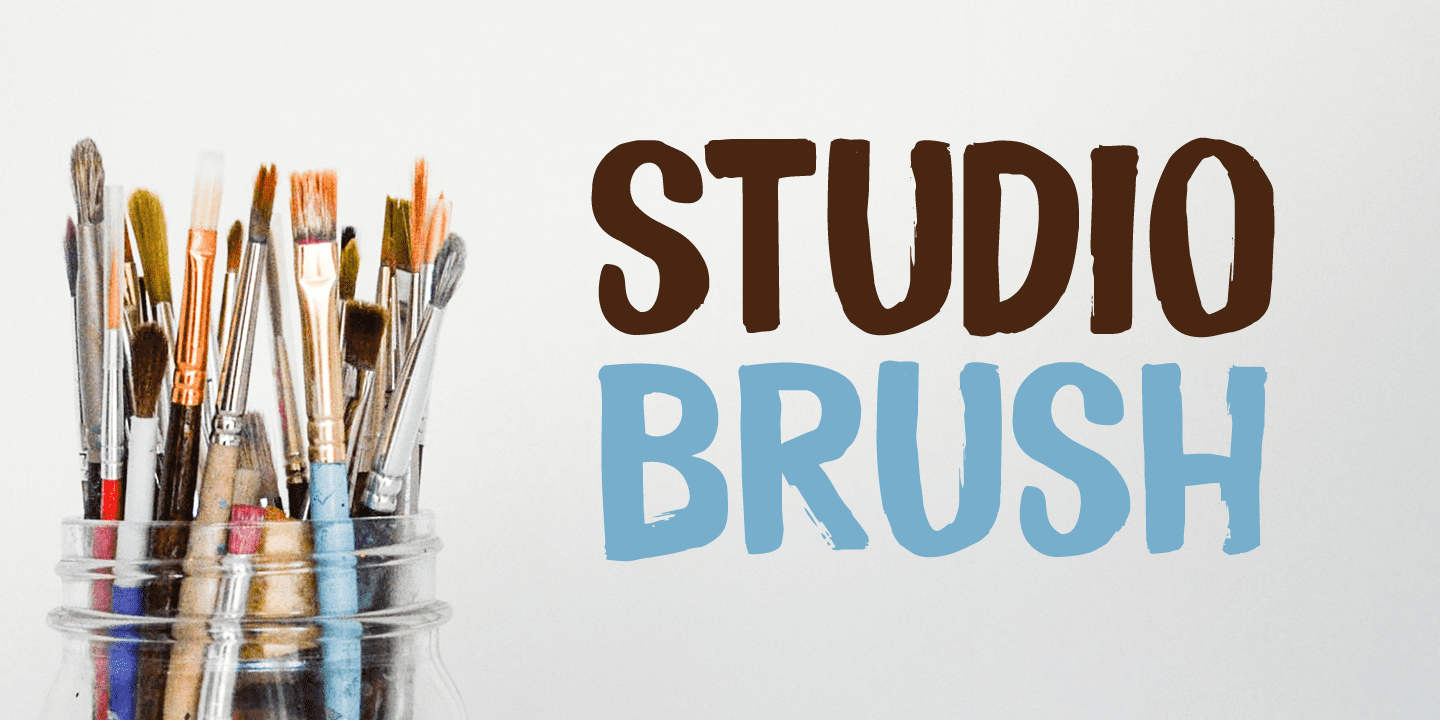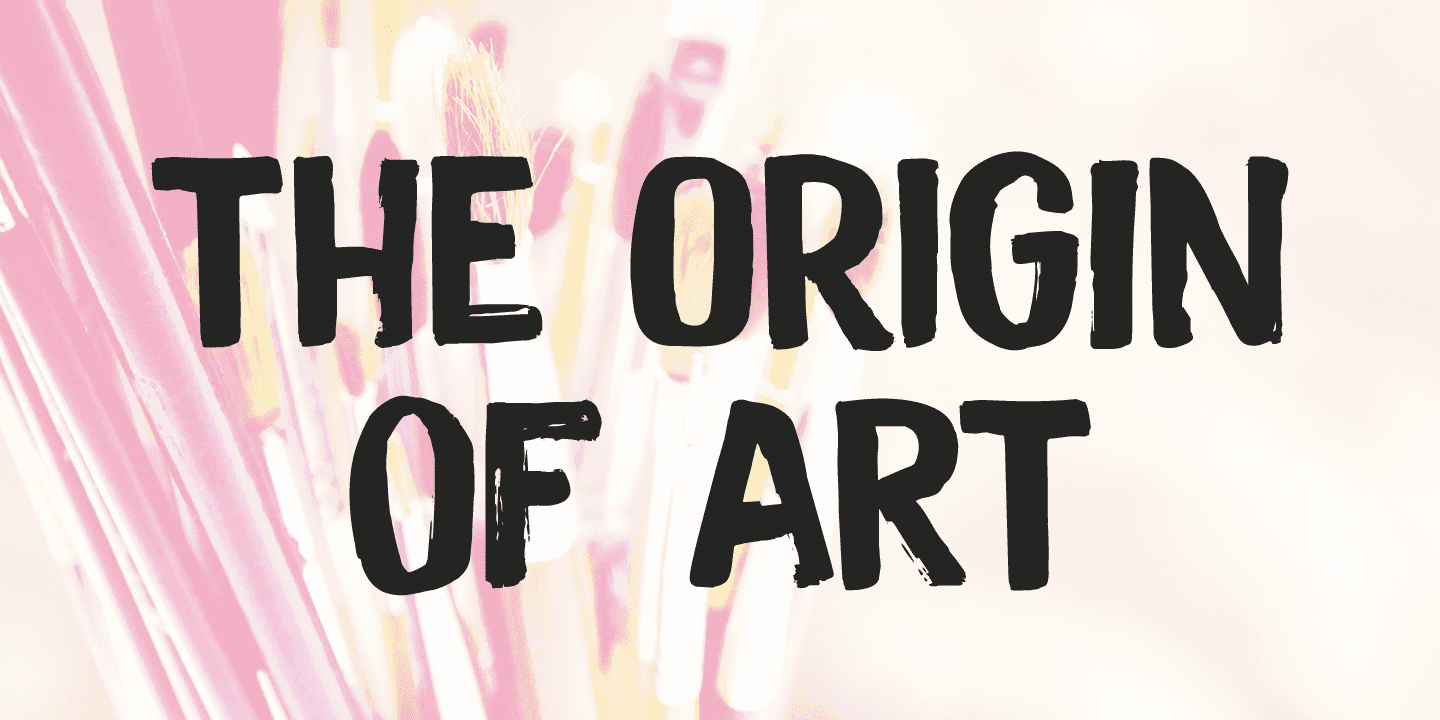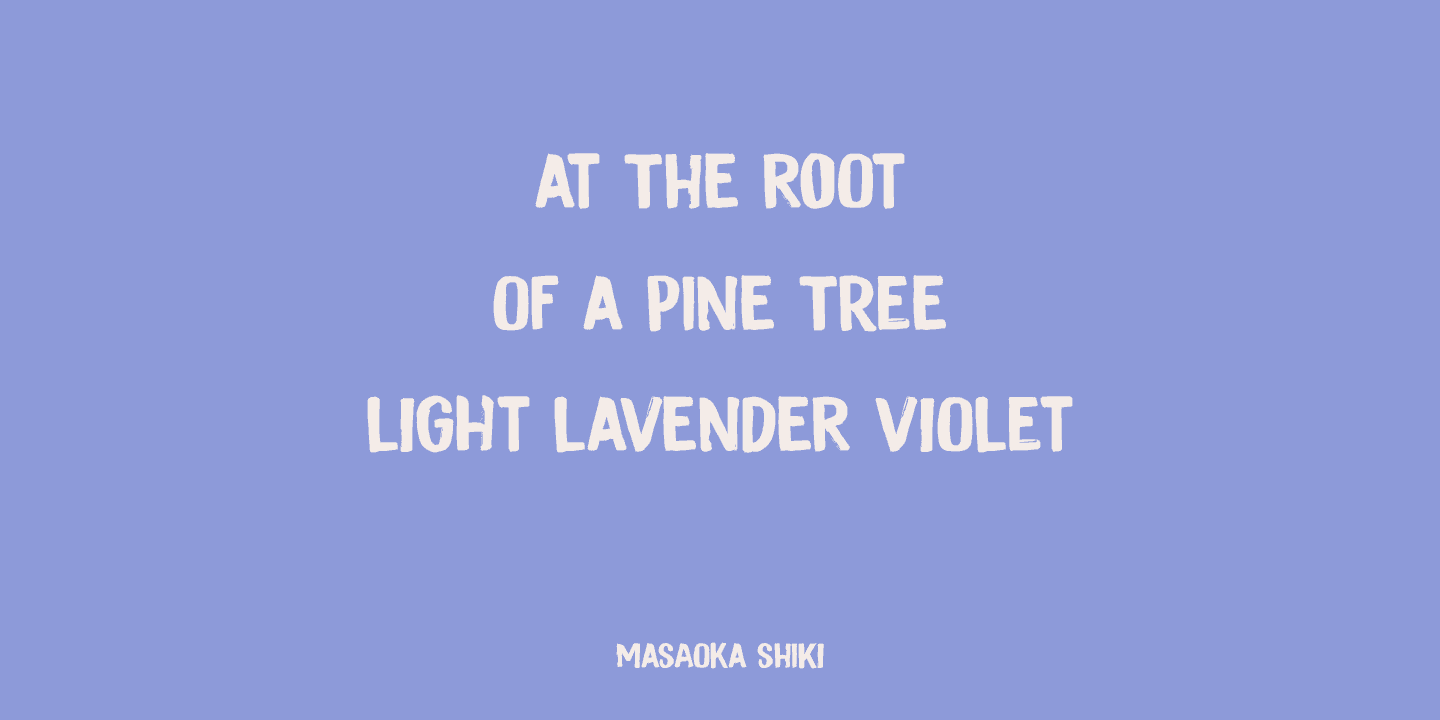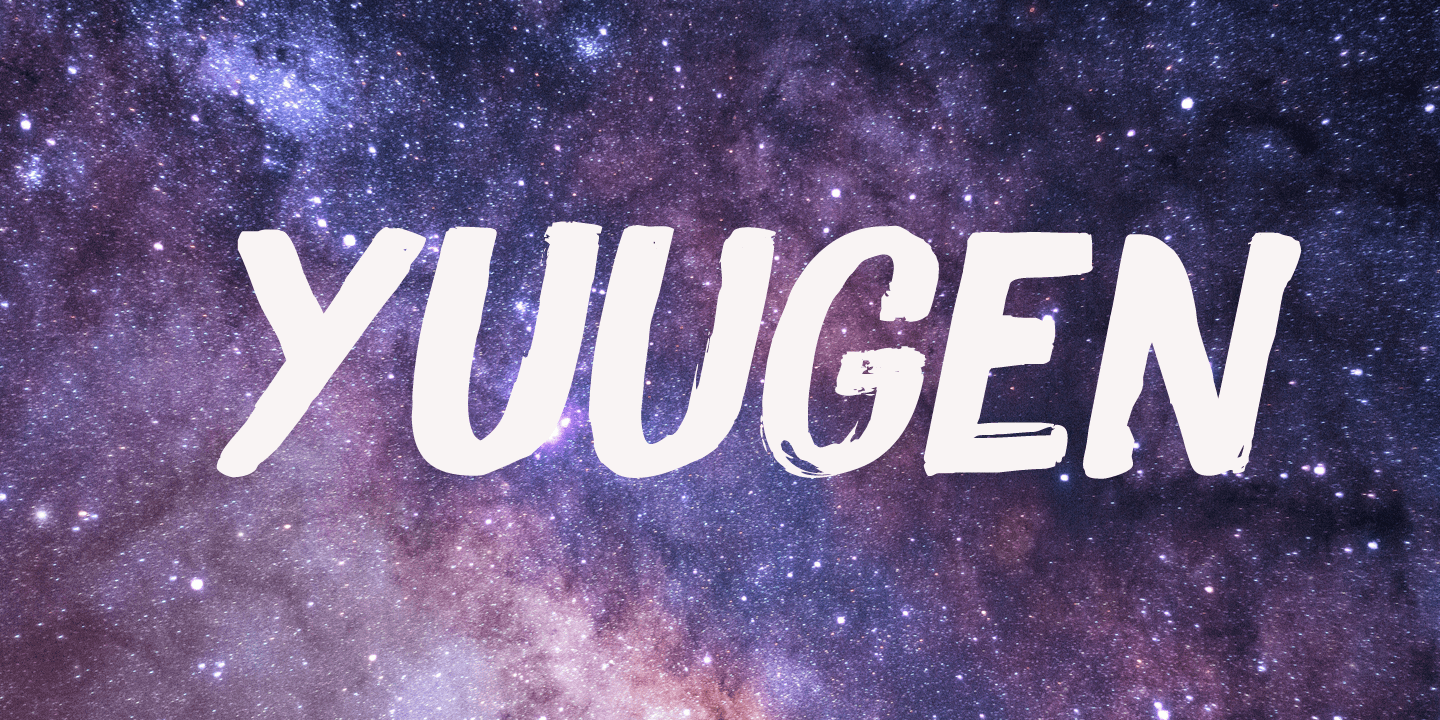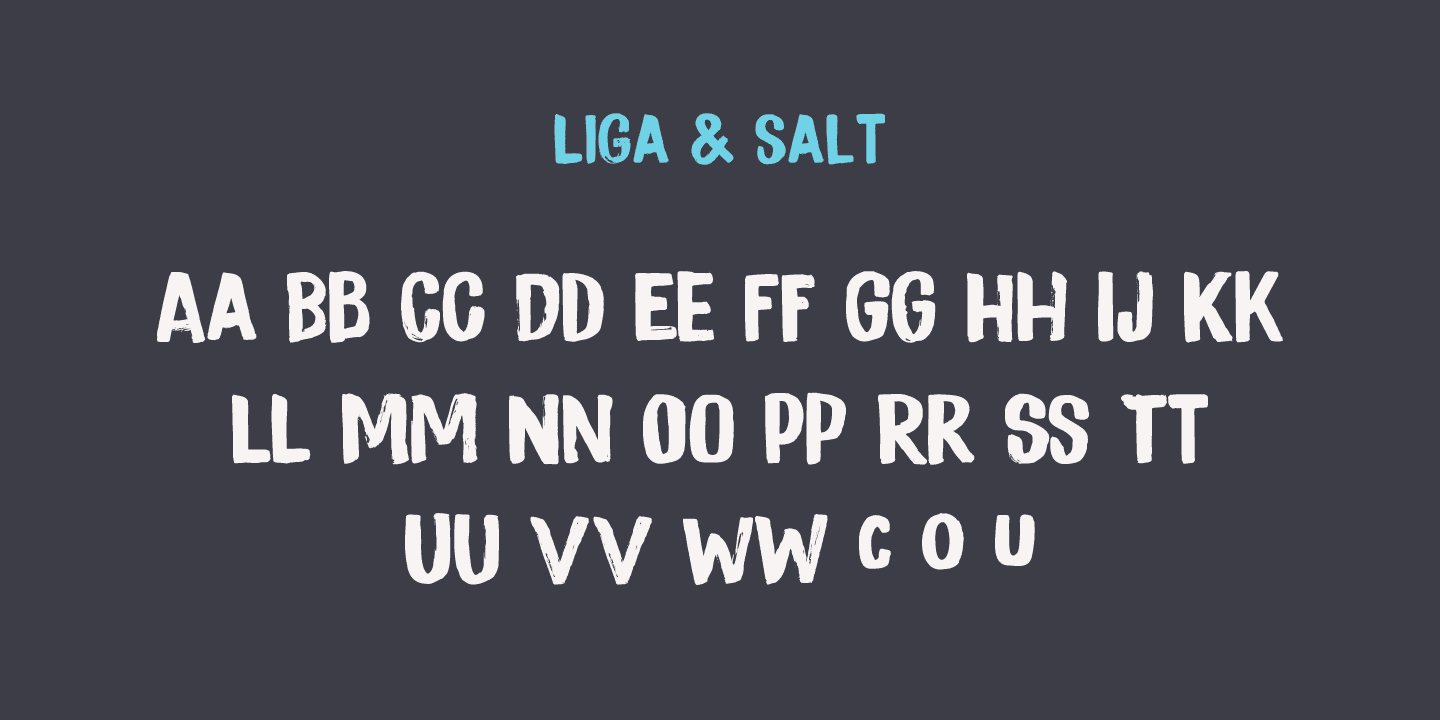
Studio Brush Family (2 fonts)
Studio Brush is quite a neat brush font: the glyphs of this all caps font are of equal height (more or less) and complement each other perfectly. Studio Brush comes with double letter ligatures and some alternate glyphs.